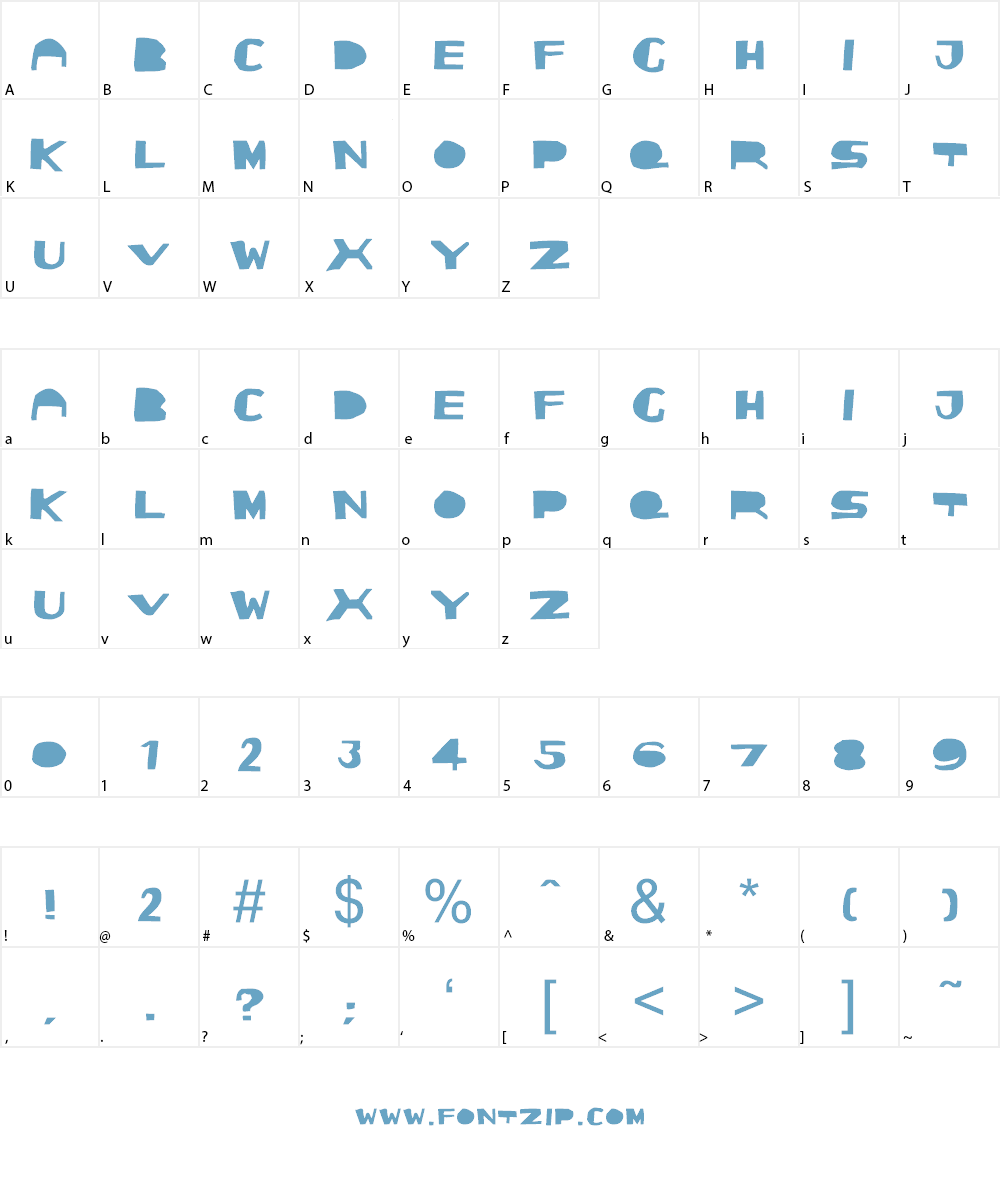
alphabet of letters cut out by Jean-Philippe Goussot of the now-defunct Atelier de Découpage Typographique. Somewhat reminiscent of lettering of posters for suspense movies from the late 1950's/early 1960's